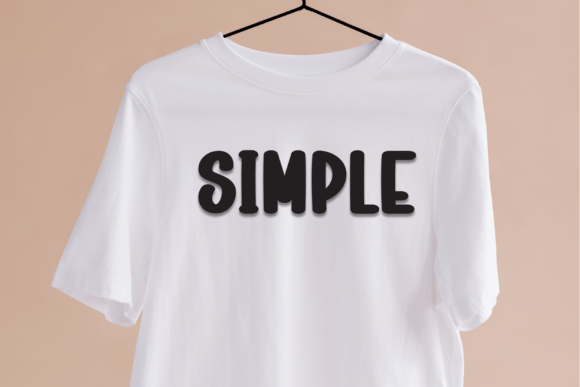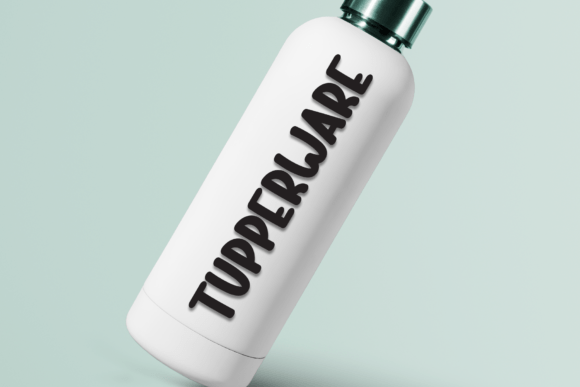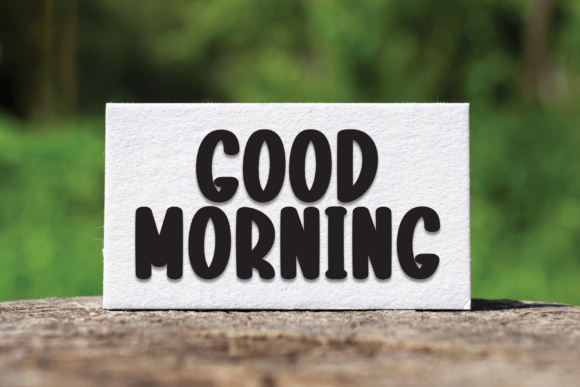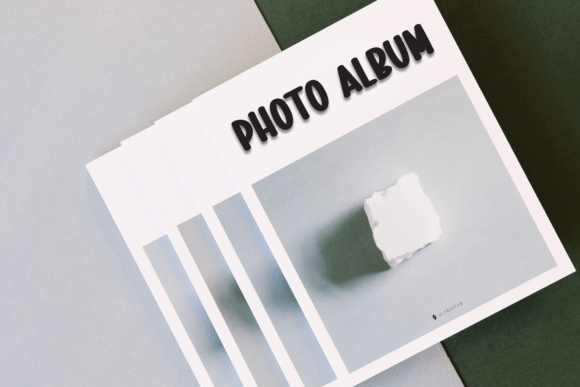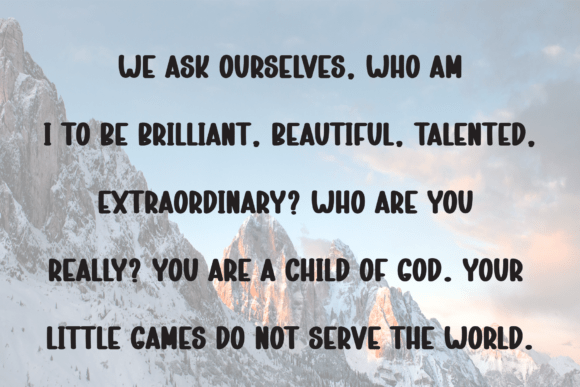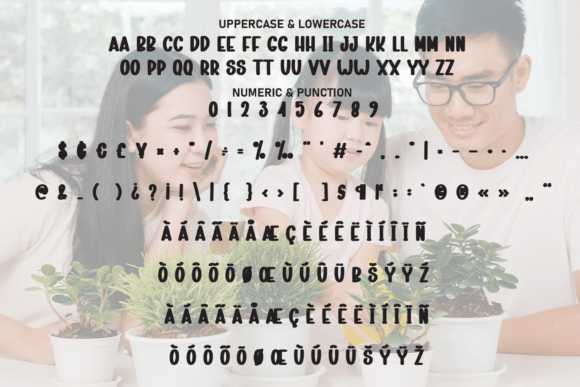
Introduction to Familiy Time Font Font
Fonts play a crucial role in design, and the Familiy Time Font font is a typeface that brings both character and versatility to any project. Whether you’re working on a branding project, a website, or a print design, the Familiy Time Font font offers a unique style that can elevate your work.
A bold, rounded display font, Family Time radiates warmth and togetherness.
Its soft, thick letters are perfect for family-themed designs, childrenβs products, and friendly branding that emphasizes connection and joy .
Key Features of Familiy Time Font Font
Why Choose Familiy Time Font Font?
The Familiy Time Font font is more than just a typeface β it’s a design tool that helps you communicate your message with style and clarity. Its unique character set and versatile design make it suitable for a wide range of applications, from elegant invitations to bold headlines.
With its carefully crafted letterforms and balanced proportions, the Familiy Time Font font ensures readability and visual appeal across all mediums.
What makes Familiy Time Font font special?
The Familiy Time Font font stands out with its unique design, exceptional readability, and versatility across various design applications.